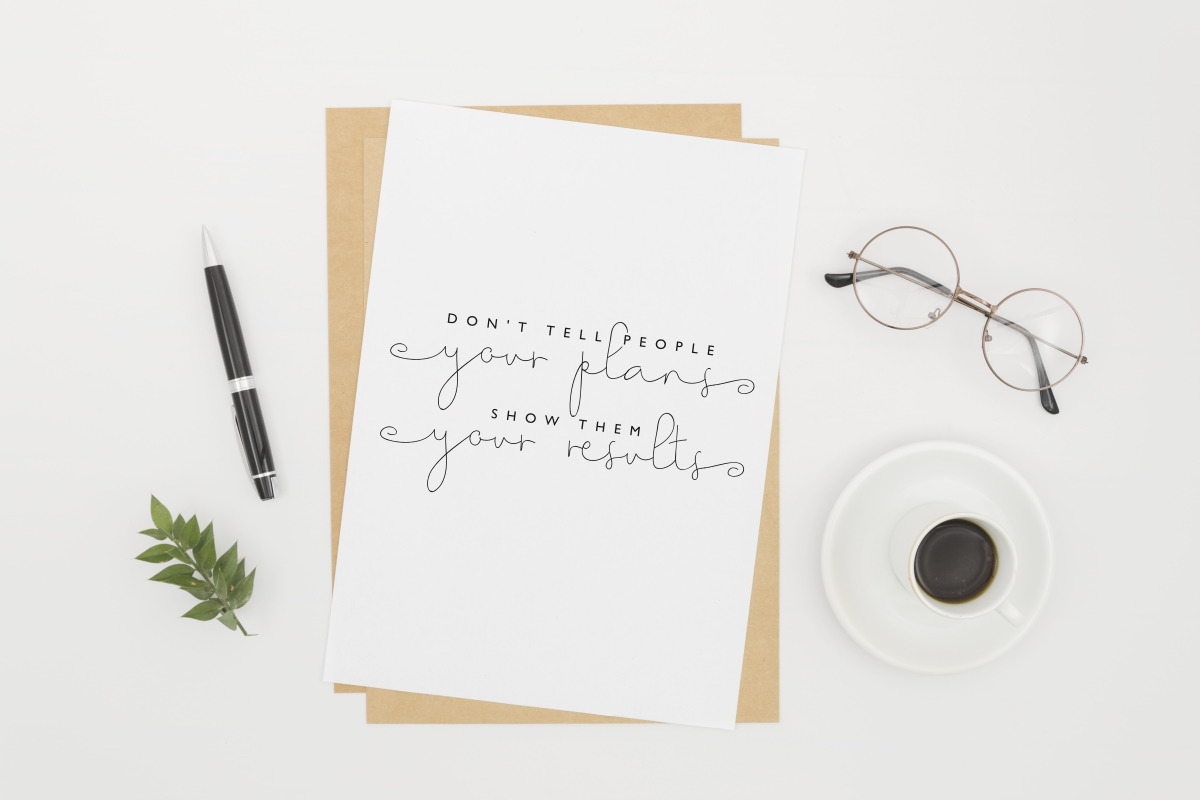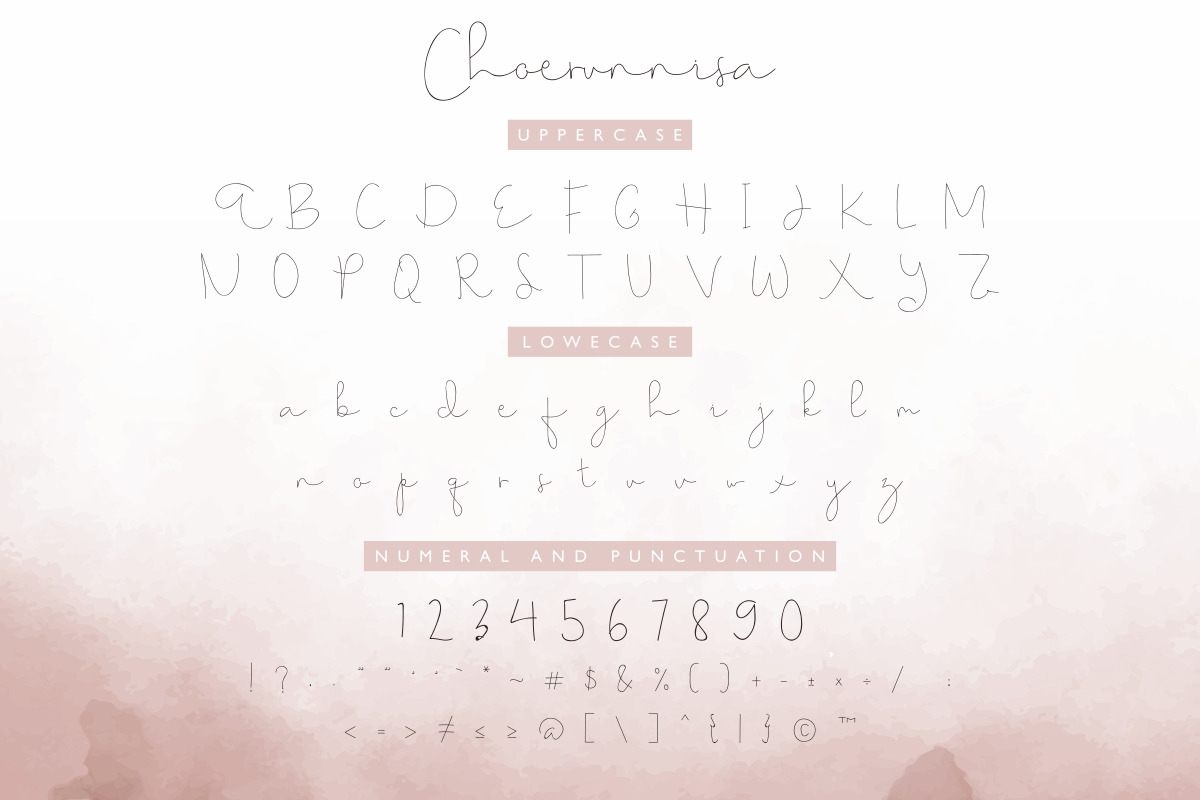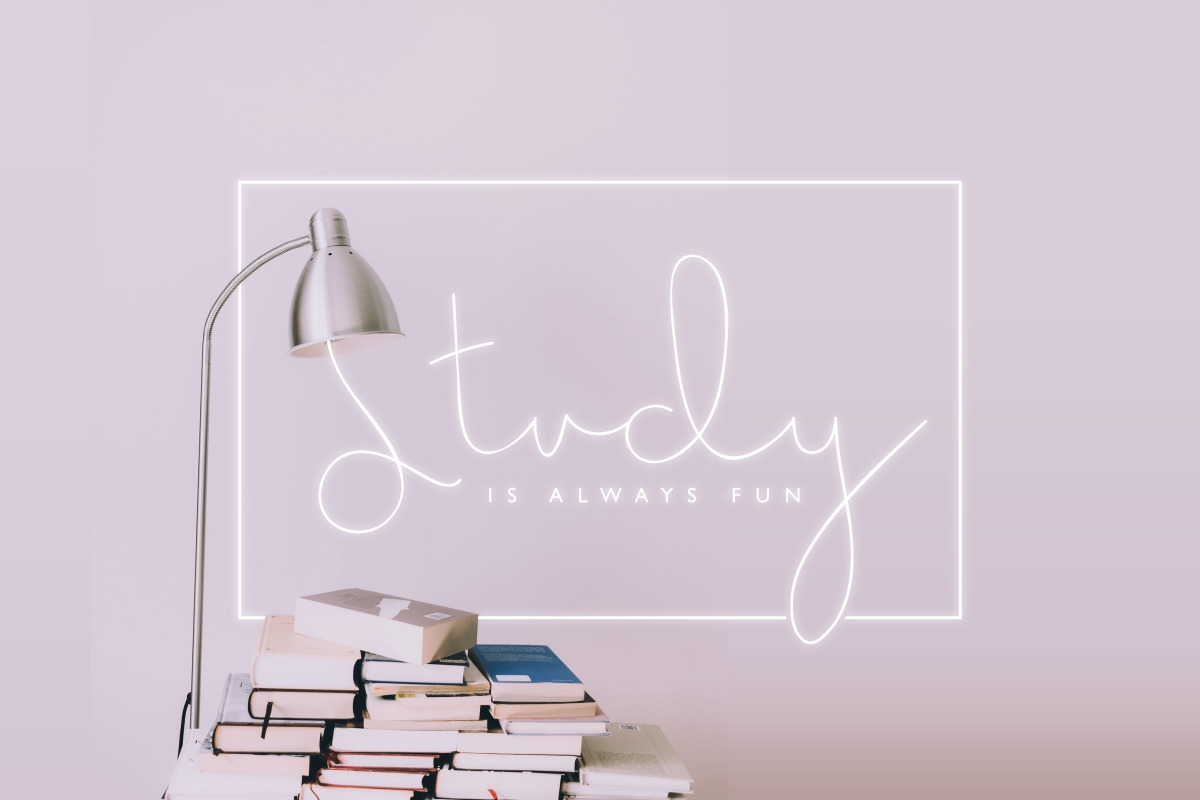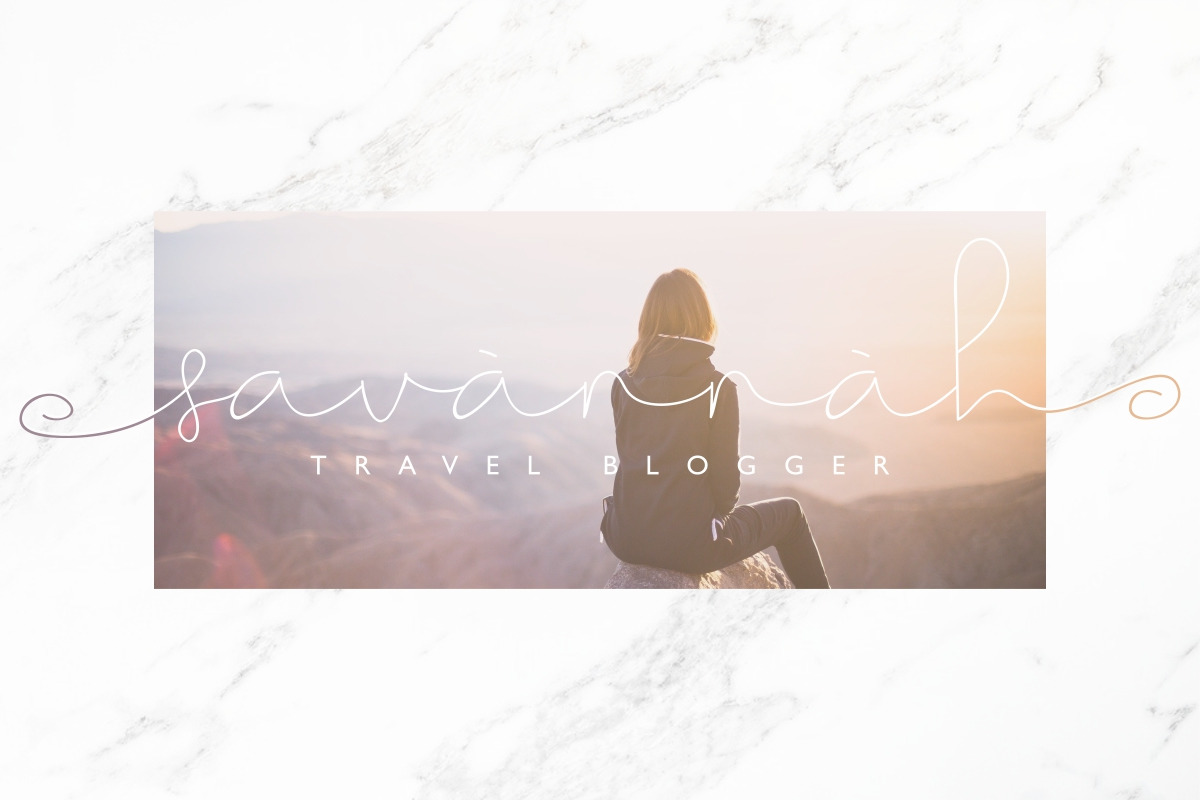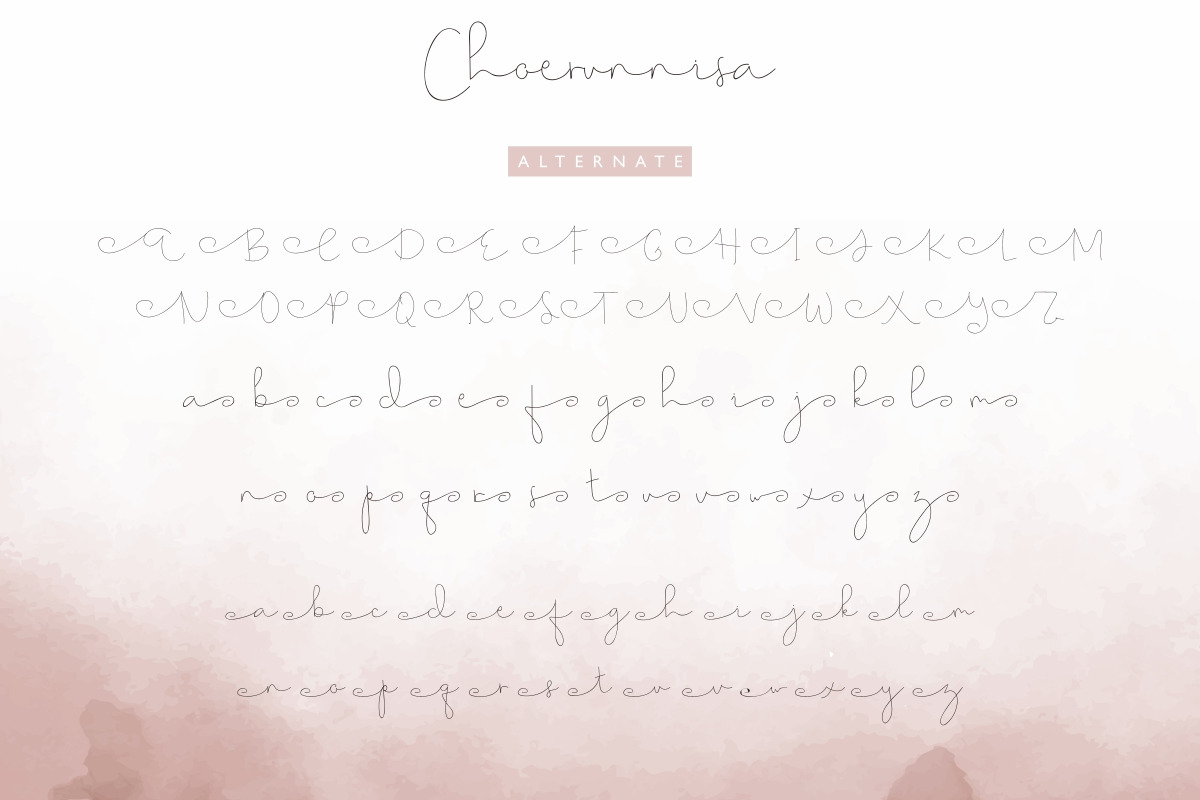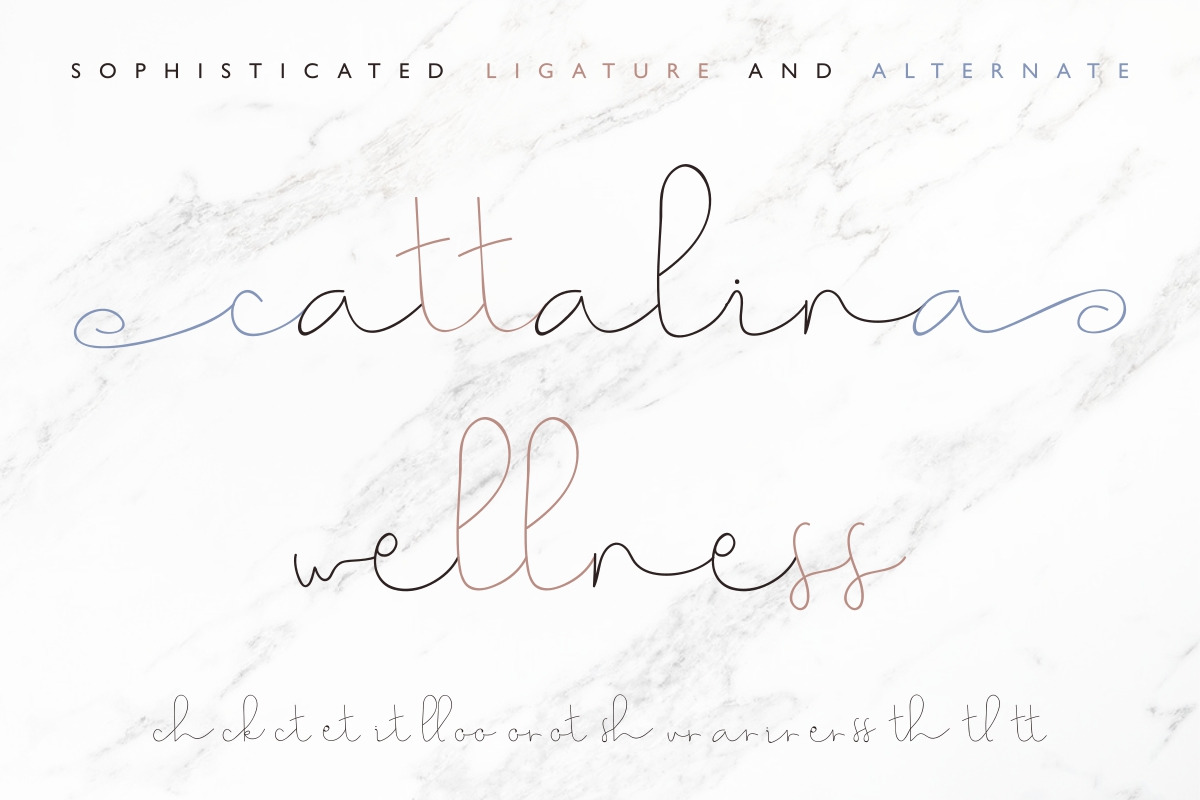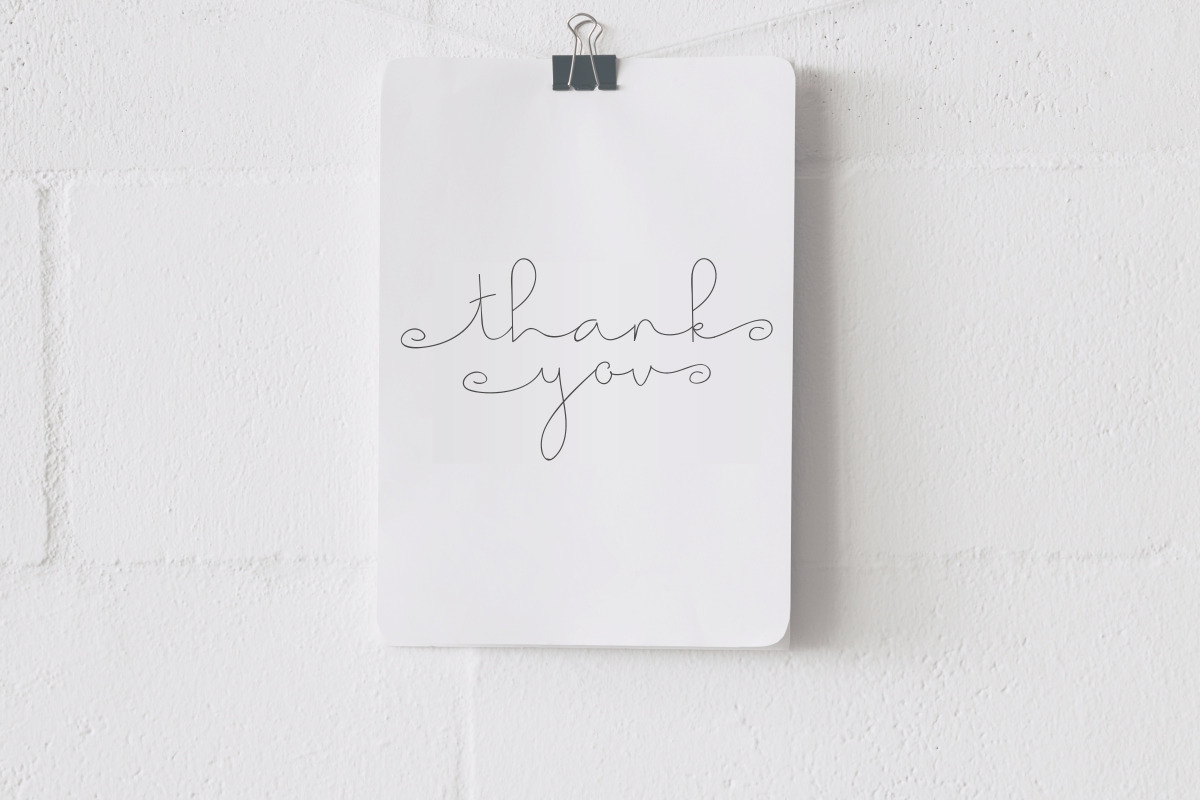
Choerunnisa Signature Font
Choerunnisa Font is the newest handwriting font we made in 2019. It supports multi international languages characters. It will Work on PC & Mac with Simple installations. Accessible in the Adobe Illustrator, Adobe Photoshop, Adobe InDesign, even work on Microsoft Word. It’s also PUA Encoded Characters – Fully accessible without additional design software.
Choerunnisa Font has many alternate glyphs. It works using opentype feature. This font will be suitable for almost all kind of projects and clients business : wedding, makeup, florist, cafe, music, marketing, laws firm, food service, hospitality etc